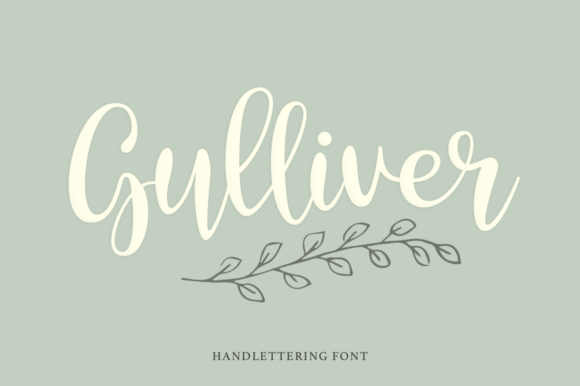
**Introducing Gulliver Font: Where Elegance and Enchantment Collide**
Prepare to embark on an extraordinary typographic adventure with Gulliver Font, a mesmerizing script that will transform your designs into captivating masterpieces. Crafted by the visionary Pasha Larin, Gulliver is more than just a font; it's an enchanting gateway to a world of imagination and creativity.
**Lose Yourself in the Script of Dreams**
Each letter of Gulliver Font dances across the page like a graceful ballerina, its strokes flowing effortlessly in perfect harmony. The curves are soft, like the gentle brushstrokes of a master artist, creating a visual tapestry that is both elegant and inviting.
**A Font that Inspires**
With Gulliver Font at your fingertips, you'll find yourself drawn to create designs that are not merely visually appealing but also deeply evocative. Whether you're crafting logos, designing invitations, or simply adding a touch of magic to your social media posts, Gulliver will elevate your words, making them stand out from the crowd.
**A Versatile Masterpiece**
The beauty of Gulliver Font lies in its versatility. It effortlessly adapts to any project, whether you're working on branding, packaging, or website design. Its enchanting script adds a touch of whimsy to children's books, while its sophisticated curves elevate corporate presentations. The possibilities are endless, bound only by the limits of your imagination.
**Step into the World of Enchantment**
With Gulliver Font gracing your designs, you'll discover the power to transform ordinary words into extraordinary works of art. Each letter becomes a brushstroke, each word a captivating story, and every design a masterpiece that will leave an everlasting impression.
**Embrace the Magic of Gulliver Font Today**